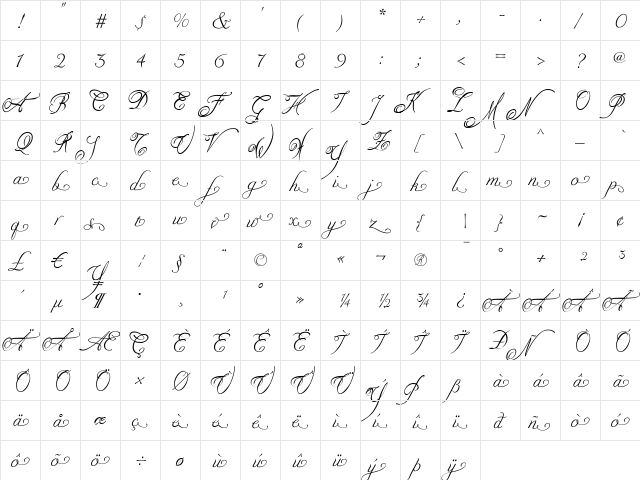
NadineScriptStartEnd Regular
Design Context for NadineScriptStartEnd Typeface
NadineScriptStartEnd flows with the natural rhythm of handwritten lettering, making it ideal for designs that call for warmth and personal expression.
Font Pairing: Combine NadineScriptStartEnd with a simple geometric sans for maximum contrast — the tension between flowing curves and clean structure is a classic typographic pairing.
Pro Tip: Pair NadineScriptStartEnd with a clean sans-serif for supporting text. The contrast between fluid script and geometric structure creates an elegant typographic hierarchy.